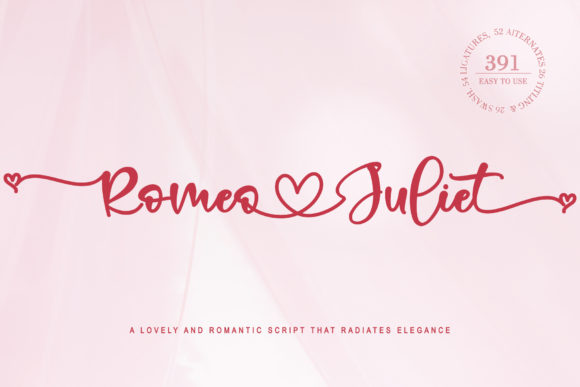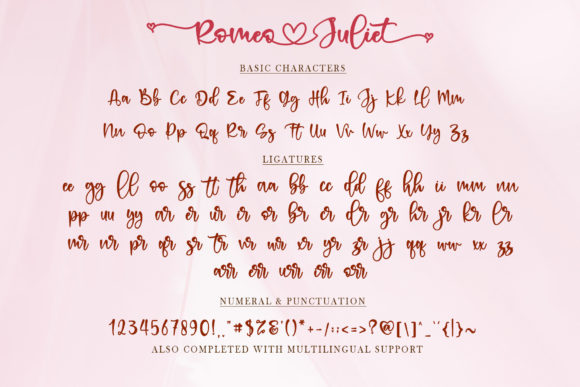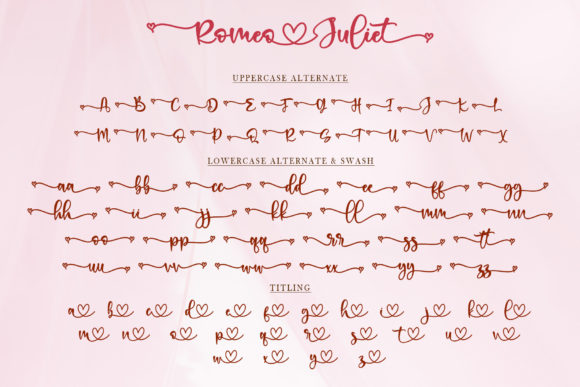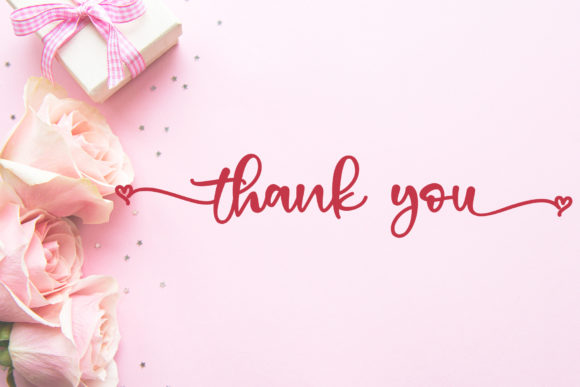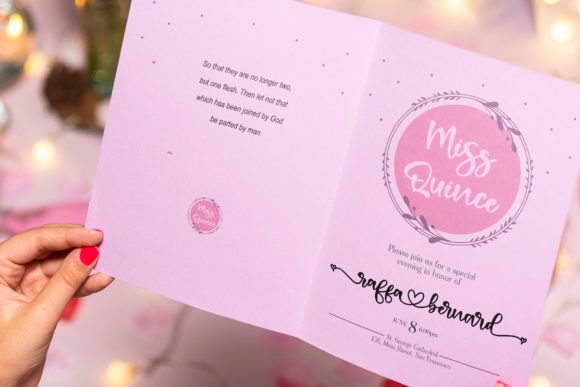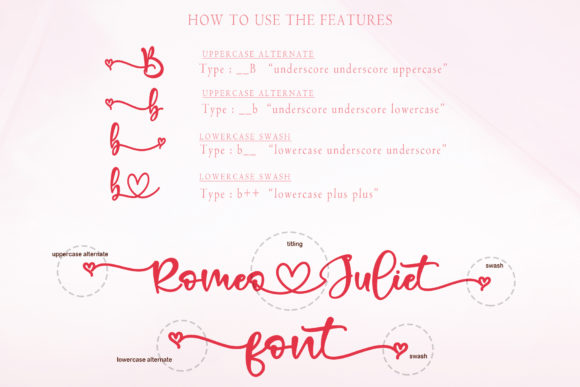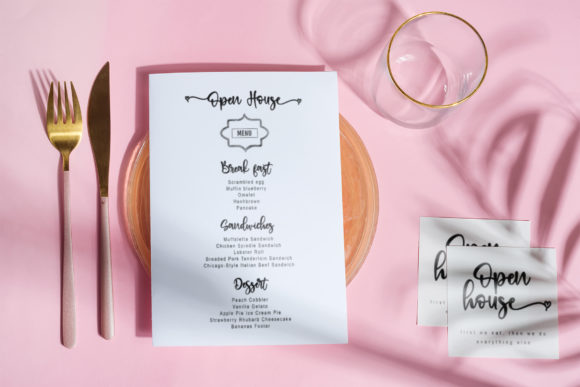
Romeo Juliet Font
About Romeo Juliet Font
Romeo Juliet is a beautiful and romantic handwritten font. It features amazing heart-shaped titling. This font is PUA encoded which means you can access all of the cute glyphs and swashes with ease!
Fall in love with its authentic feel and use it to create gorgeous designs.